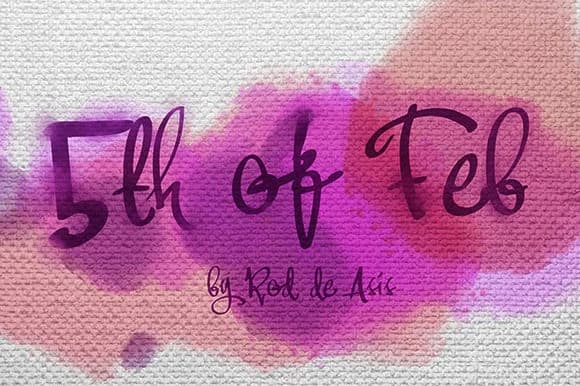
About 5th of Feb Font
Picture yourself designing save-the-dates for a destination wedding, and you need the kind of script that feels both polished and personal. Enter 5th of Feb, a flowing script font by Rodi.de.Artist.com that brings authentic hand-lettered warmth to any layout it touches. The typeface's natural rhythm works beautifully for wedding invitation suites, engagement announcements, and romantic greeting cards where that human touch matters.
This font thrives when given space to breathe and let its personality shine through. Etsy sellers use scripts like this for everything from custom candle labels to personalized stationery sets, knowing it adds that handmade credibility buyers want. DIY enthusiasts reach for it when lettering signs for home decor or special events, where a casual elegance reads better than rigid geometry. Even greeting card designers love working with letterforms that balance genuine elegance with approachability, making it feel equally at home on luxury packaging and casual craft projects.
The 5th of Feb reads beautifully at large display sizes while keeping that signature handcrafted character intact throughout any application. It's the kind of script that flows equally well on formal stationery or casual projects alike. You'll find it on Creative Fabrica whenever you're ready to add it to your collection.
5th of Feb Font is a script font that shines as a display or heading face. Pair it with a clean sans-serif or serif font for body text β the contrast creates a clear hierarchy while the two styles stay balanced and easy to read.